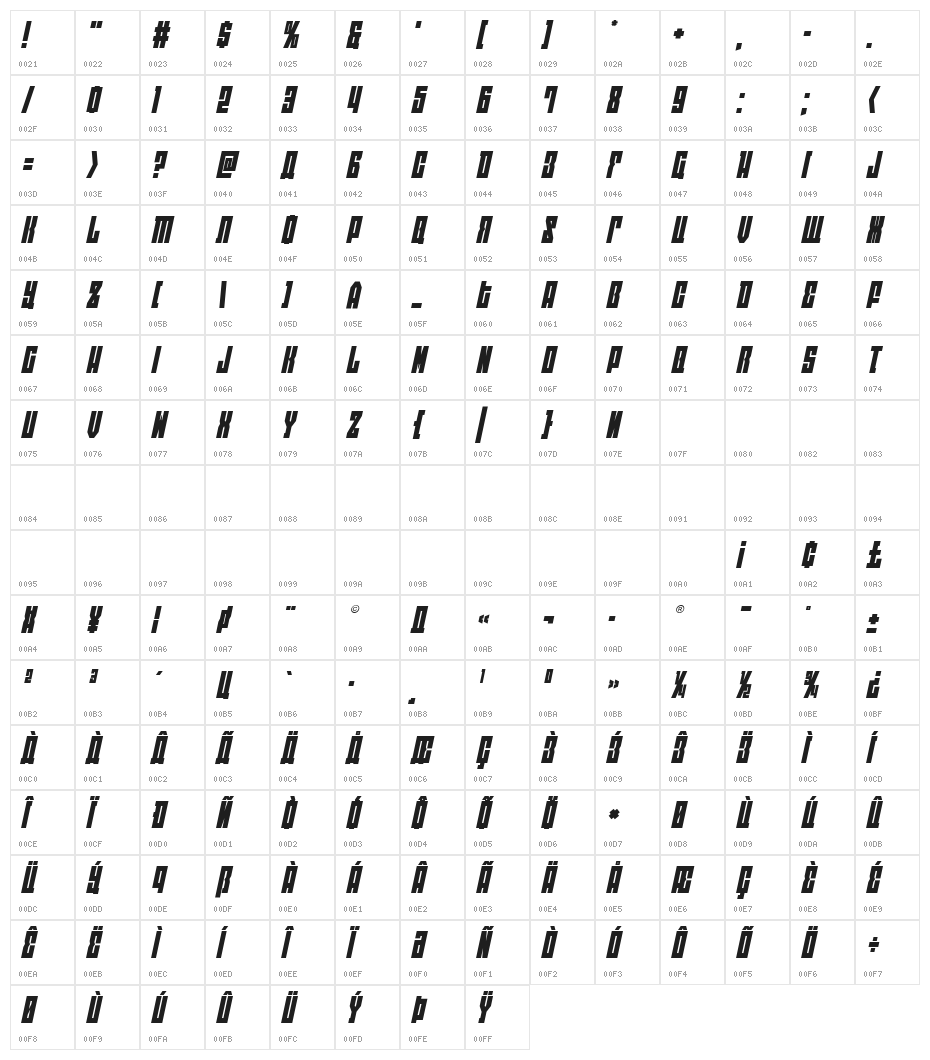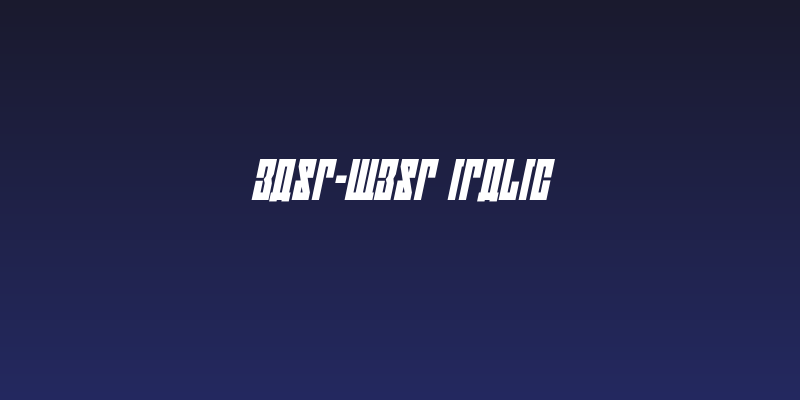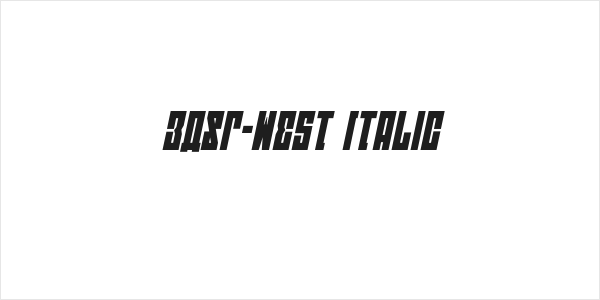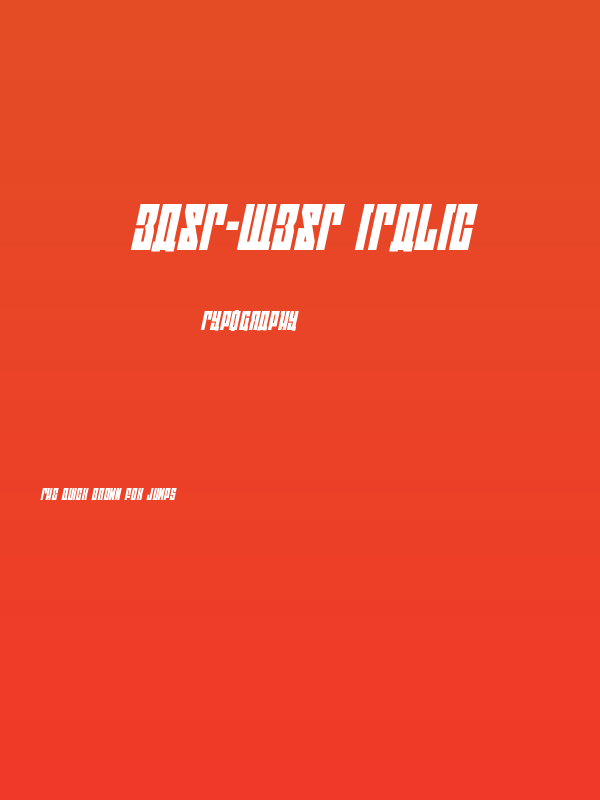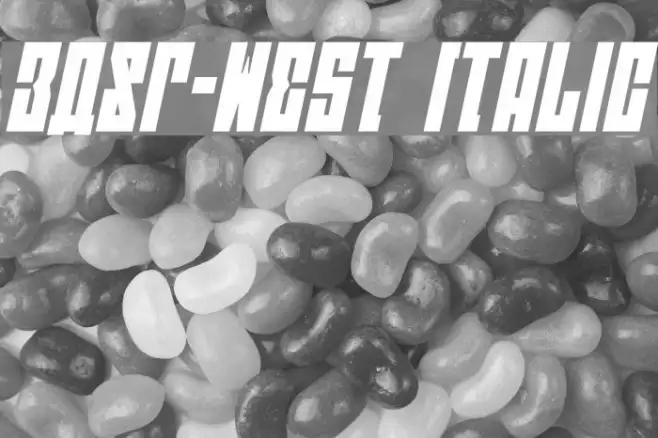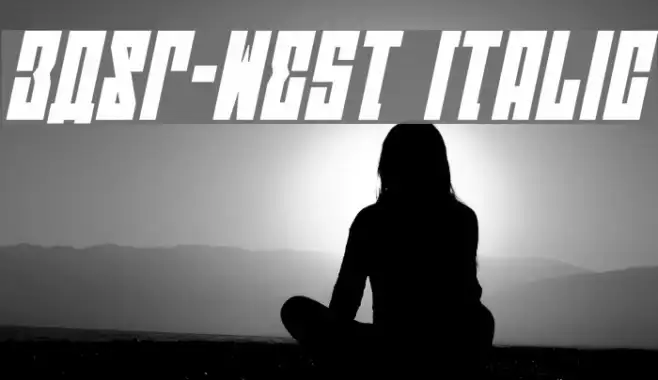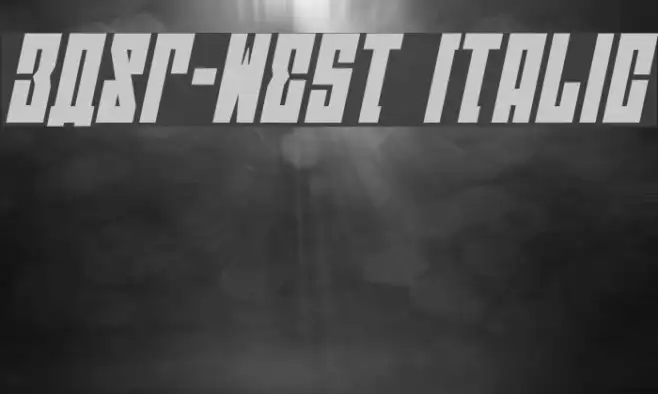
EAST-west Italic Font
EAST-west Italic Description
This font features a bold and dynamic design with a strong presence. The characters are heavily slanted, giving an italicized appearance that adds a sense of motion and urgency. The strokes are thick and consistent, providing a robust and impactful look. The angular shapes and sharp edges contribute to a modern and edgy style, making it suitable for attention-grabbing headlines or titles. The uppercase and lowercase letters maintain a uniform width, enhancing readability while retaining a distinctive flair. The numerals and special characters are equally bold, ensuring consistency across all text elements.
| Proposed Projects | This font is perfect for projects that require a strong visual impact, such as posters, logos, sports branding, and dynamic advertising campaigns. |